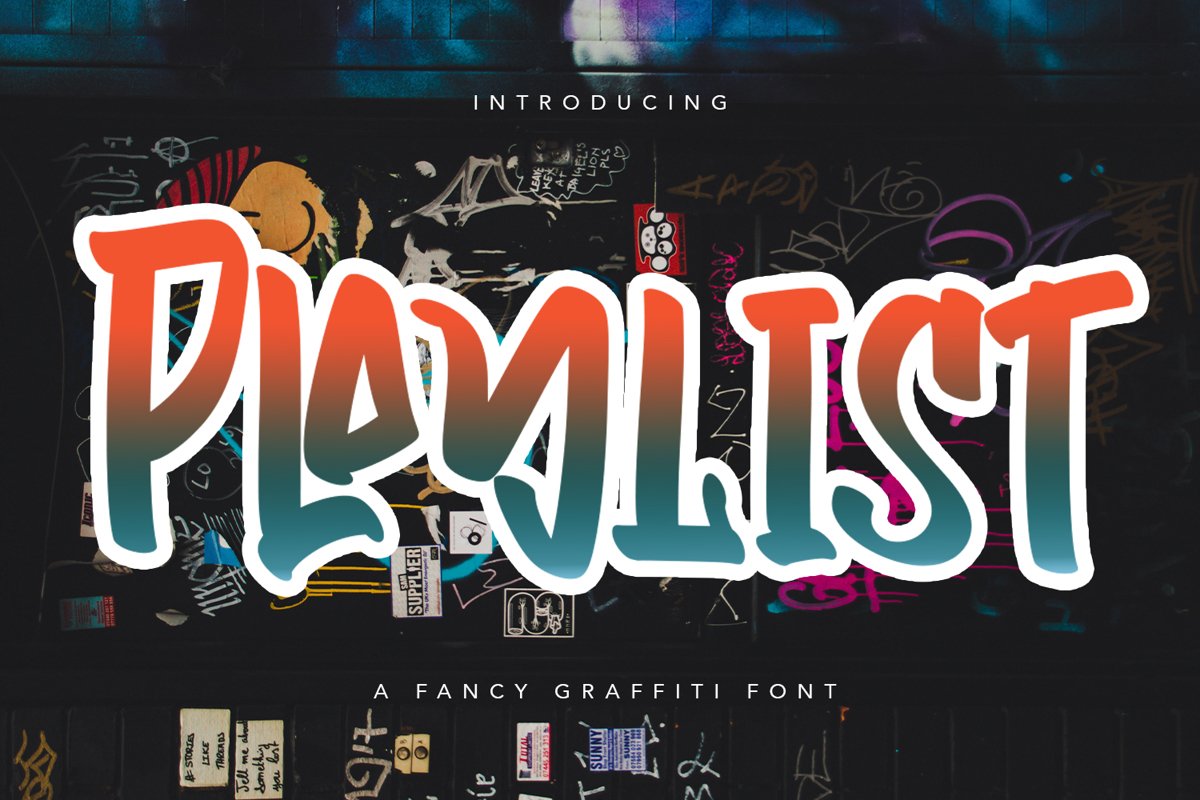
Playlist - Fancy Graffiti Font that contain lowercase, uppercase, symbol, and also support multi language. There’s a lot ligatures in this font. This Font also comes with ligatures, alternates and many more. this font suitable for fashion, branding, catalog and other design what you want.
Playlist